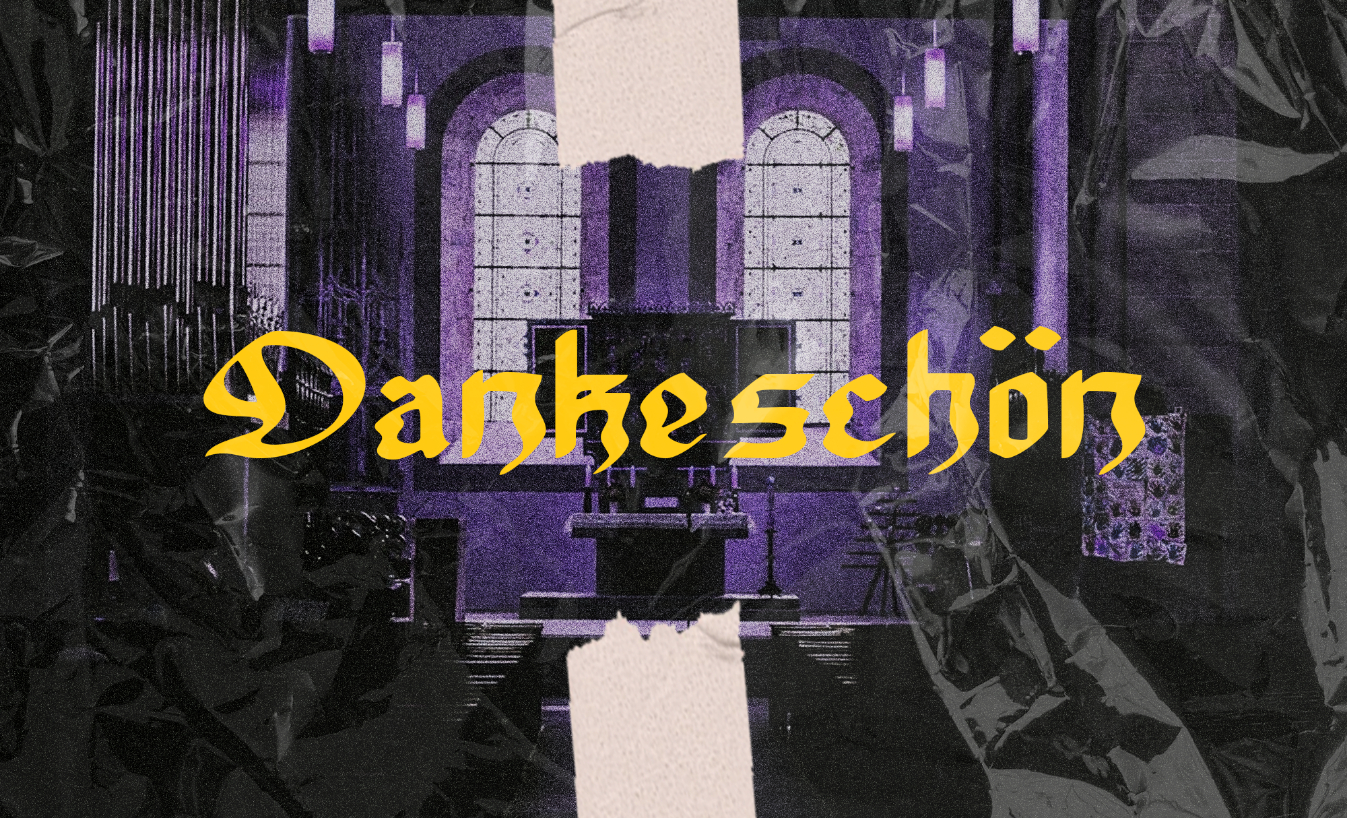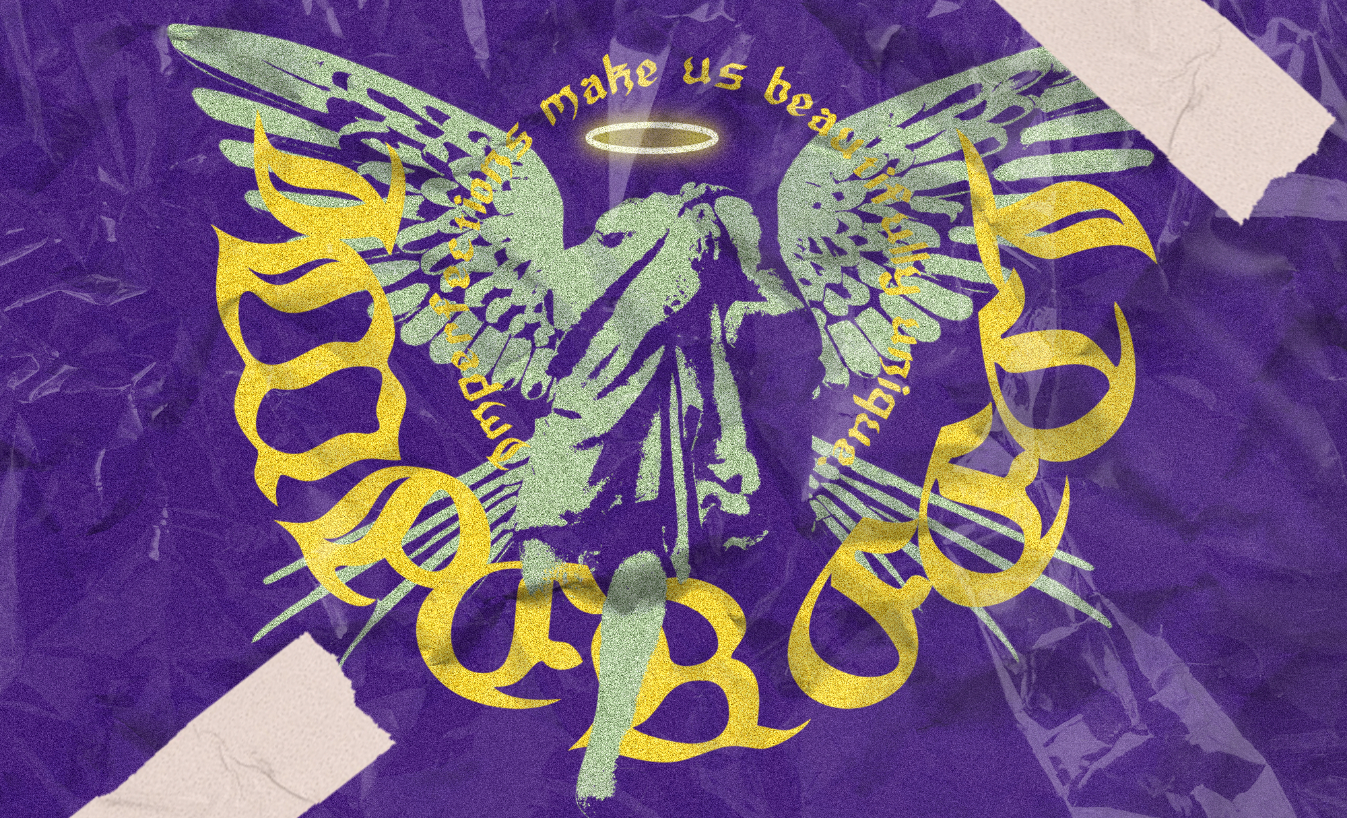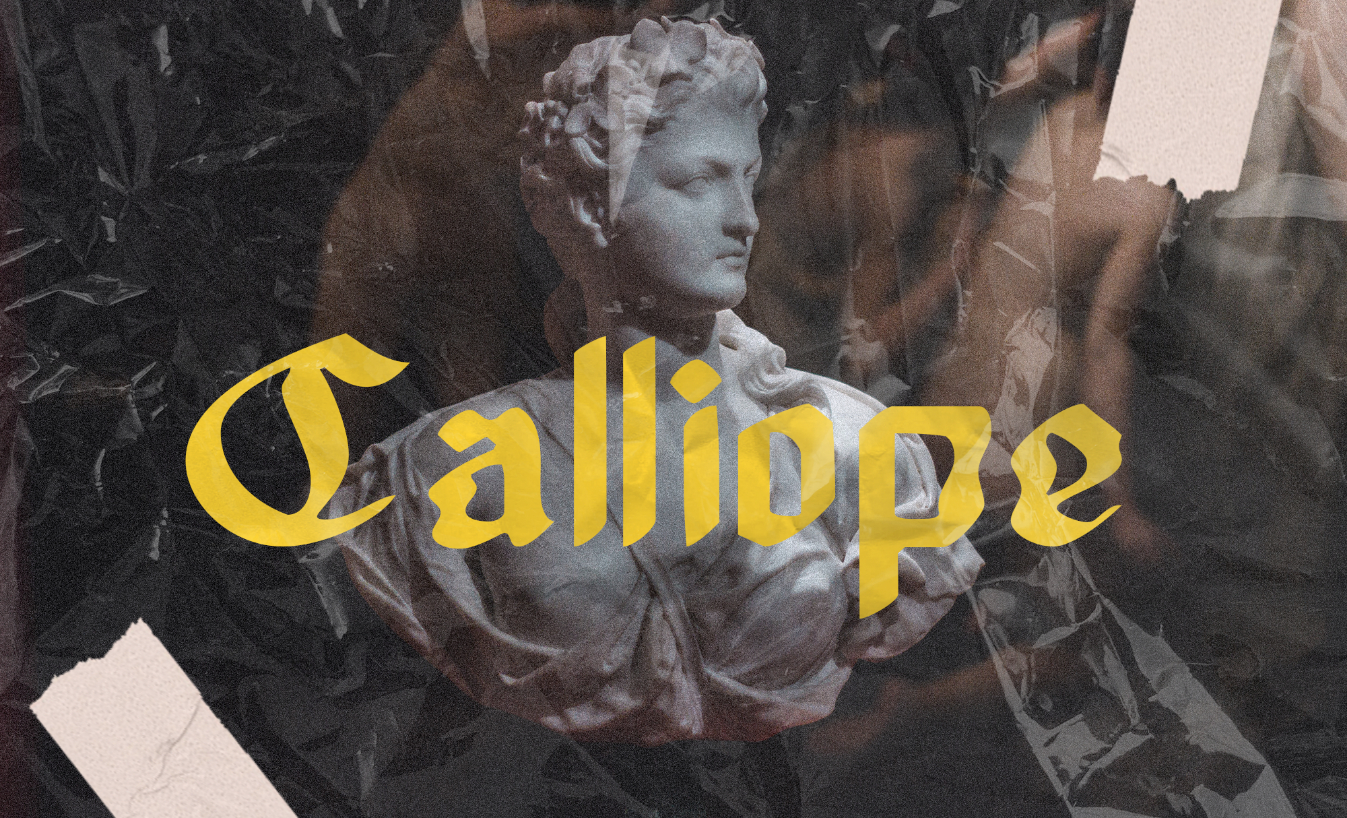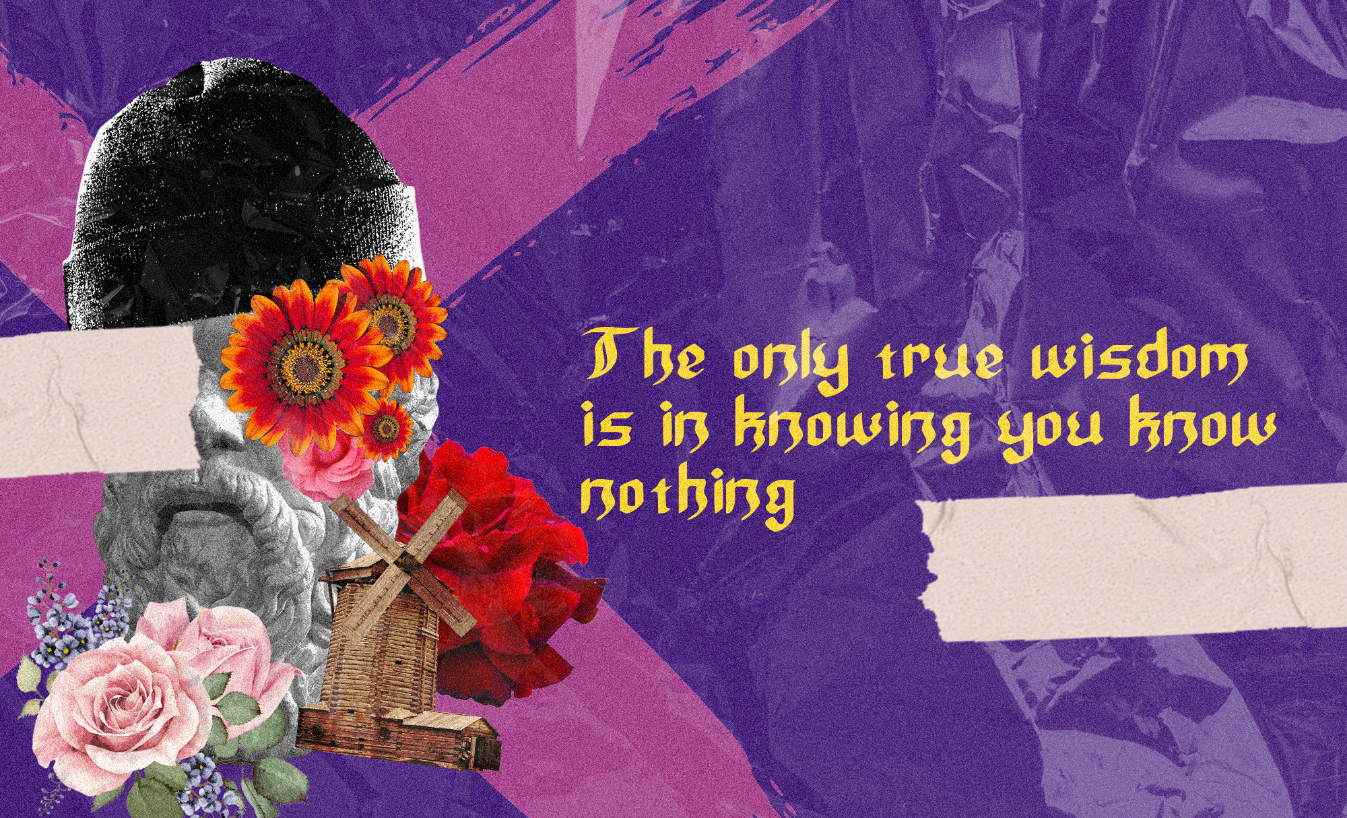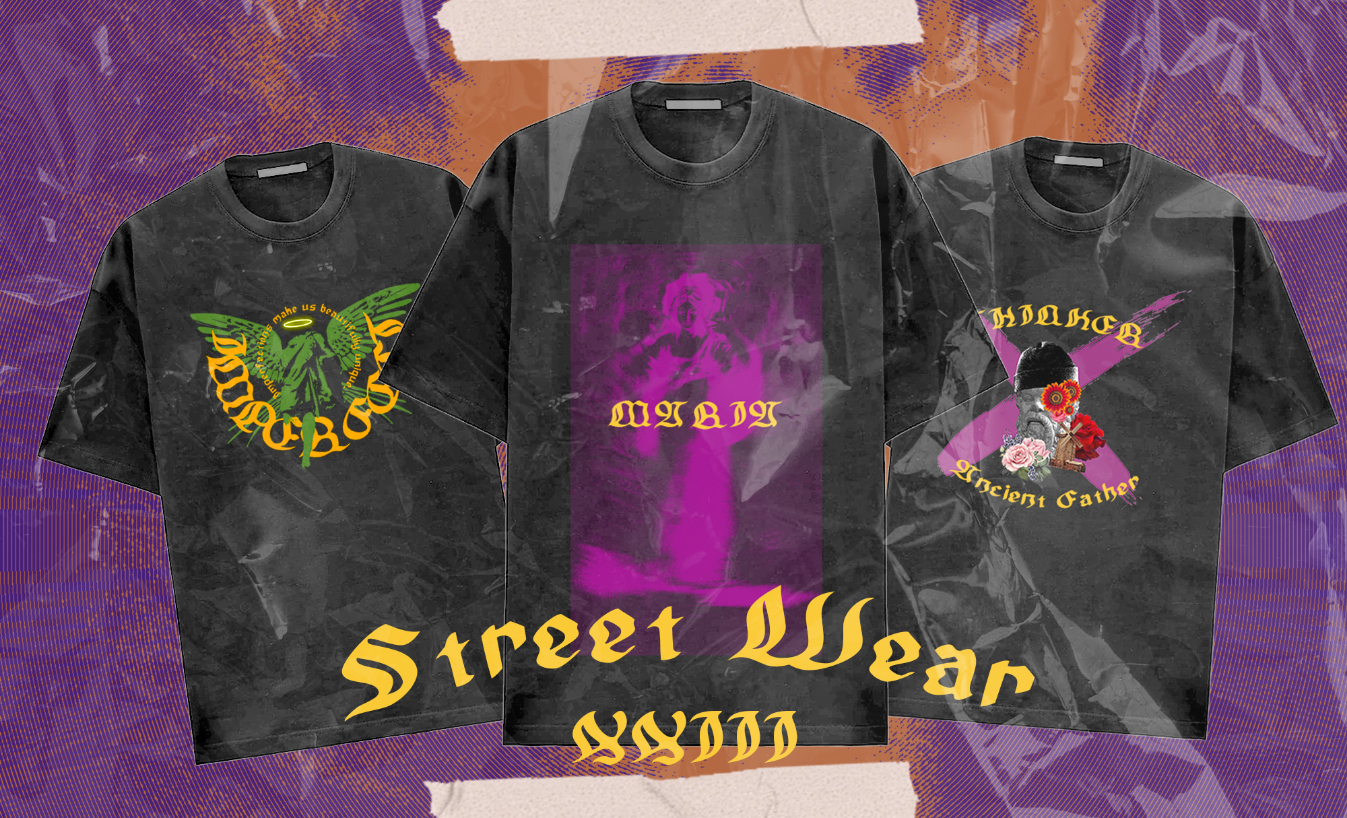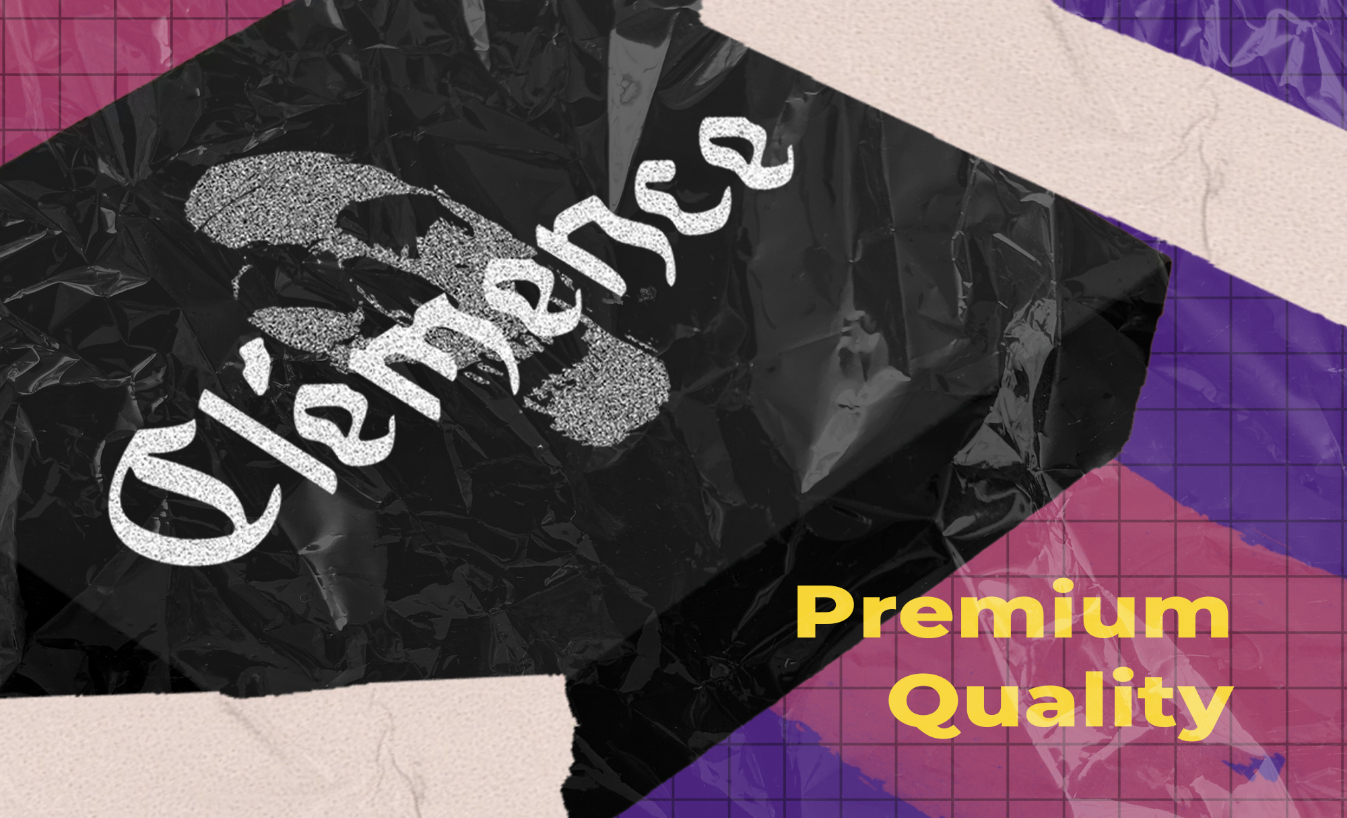
Goldwyre Font
About Goldwyre Font
Introducing Goldwyre, a mesmerizing typeface that seamlessly blends elements from medieval to modern times. Inspired by Gothic Blackletter and infused with bold calligraphic strokes, Goldwyre is a versatile font available in regular and bold weights. Perfect for posters, marketing materials, titles, t-shirt designs, headlines, and more, Goldwyre is the ultimate choice for those seeking a captivating and stylish typographic solution.